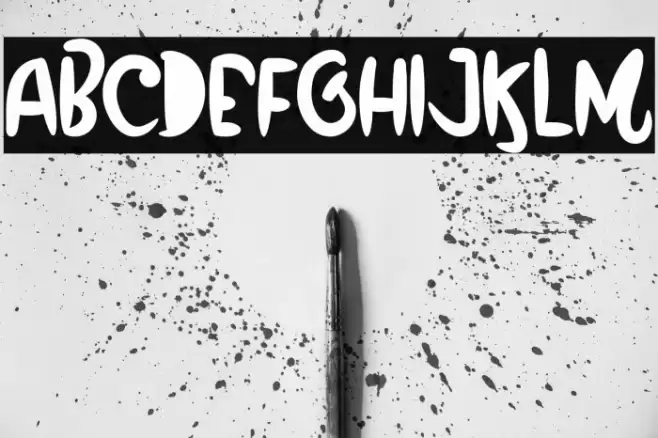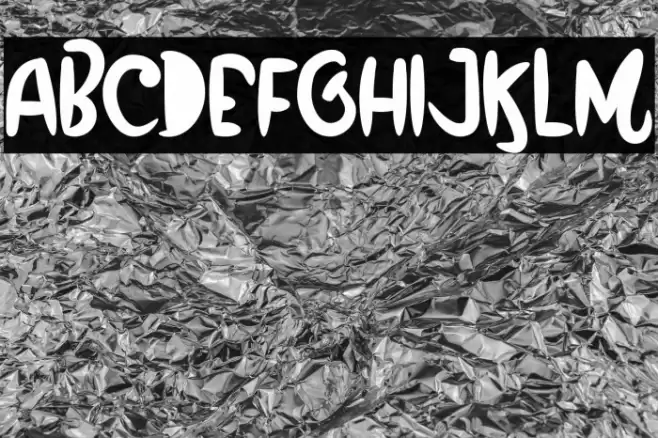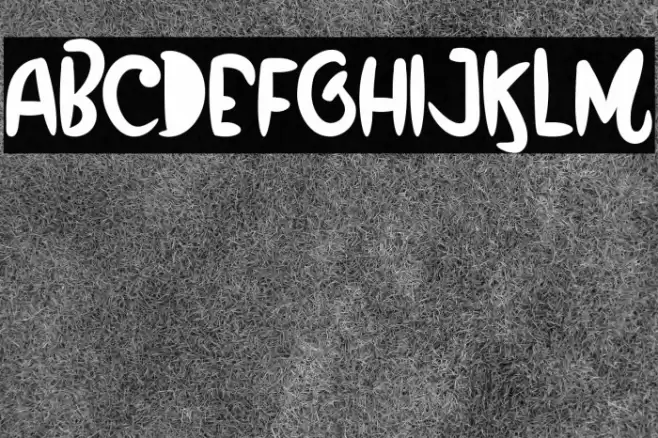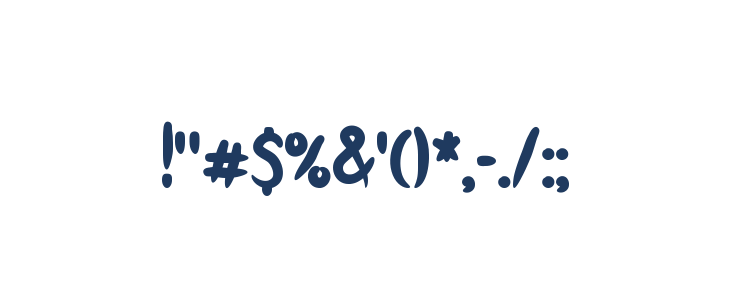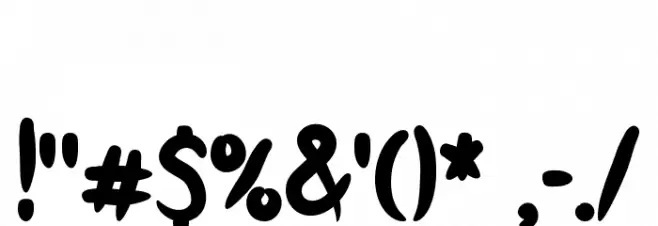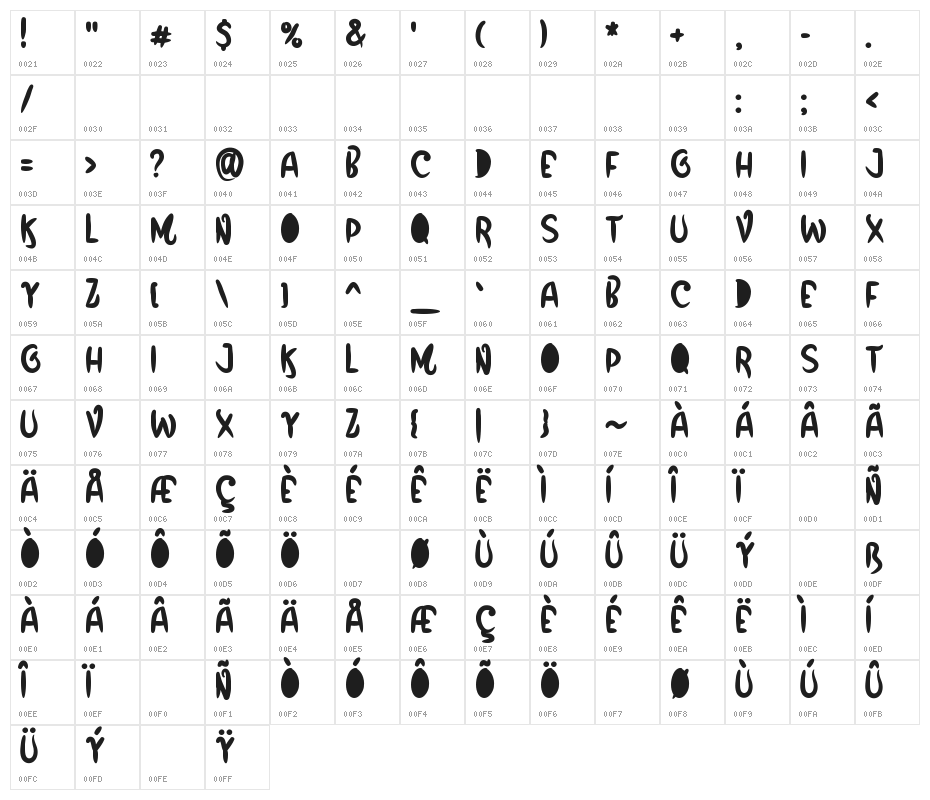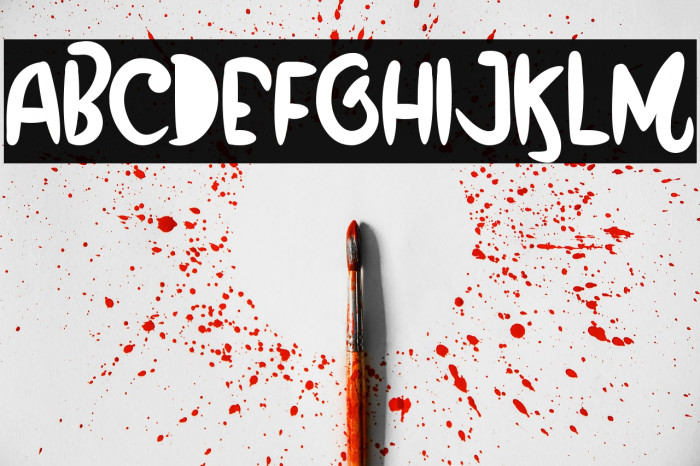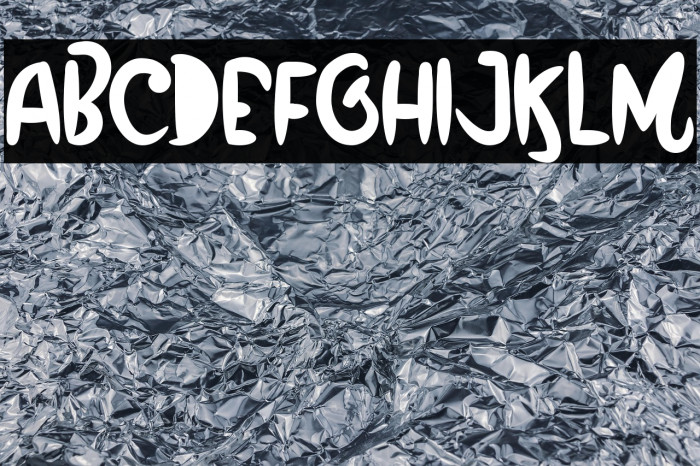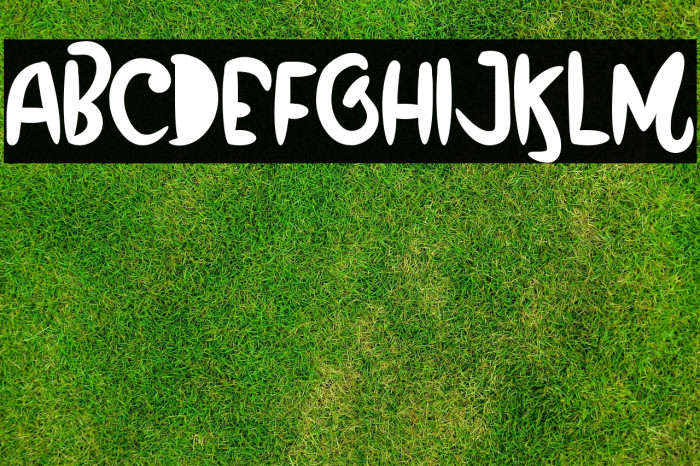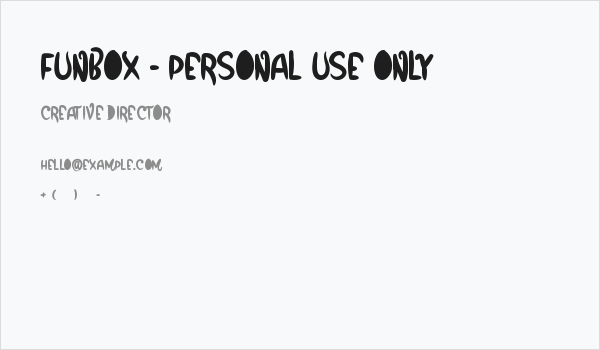
Funbox - Personal Use Only Font
Funbox - Personal Use Only Description
This playful and bold font features a unique, hand-drawn style with exaggerated curves and a whimsical flair. The characters are thick and rounded, giving a sense of fun and creativity. The uppercase letters have a consistent height, while the lowercase letters maintain a similar width, creating a harmonious balance. The numbers and special characters follow the same playful aesthetic, making the font versatile for various creative projects. Its bold strokes and distinctive style make it stand out, perfect for capturing attention.
A bold, playful font with a hand-drawn, whimsical style from Uncategorized fonts.
- Proposed Projects: Ideal for children's books, playful branding, posters, and creative social media graphics.
- Overall Style: Playful, Whimsical, Creative